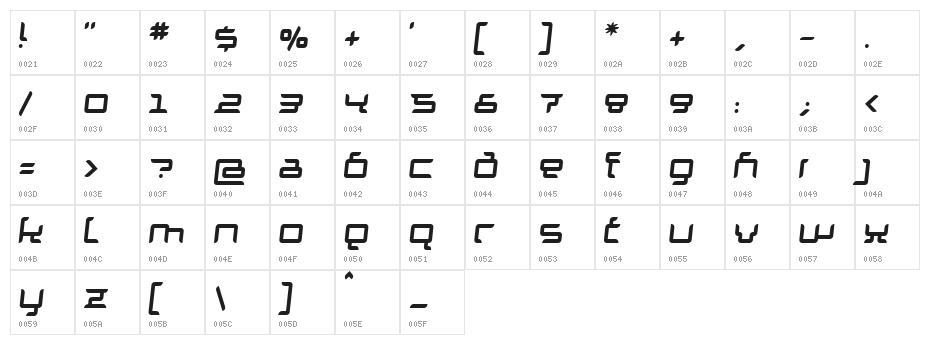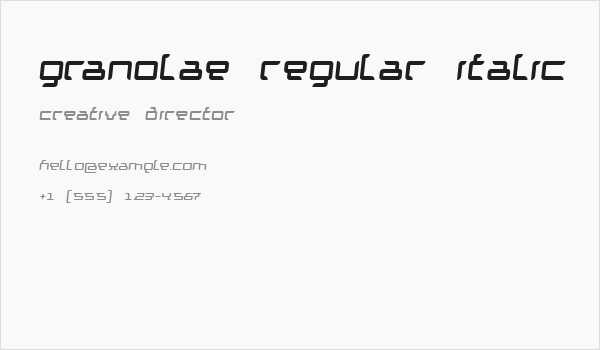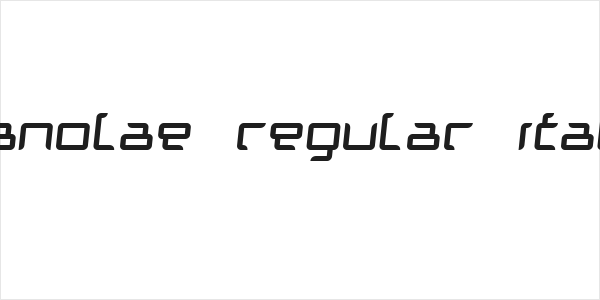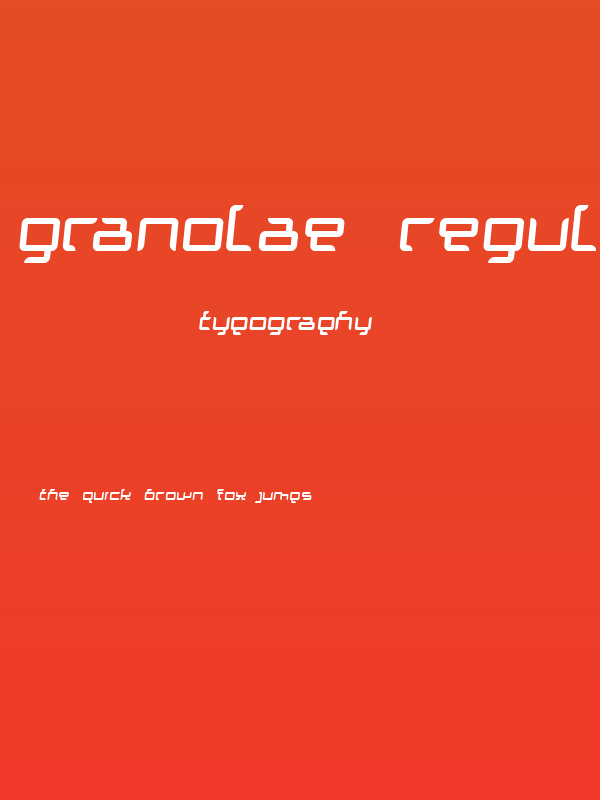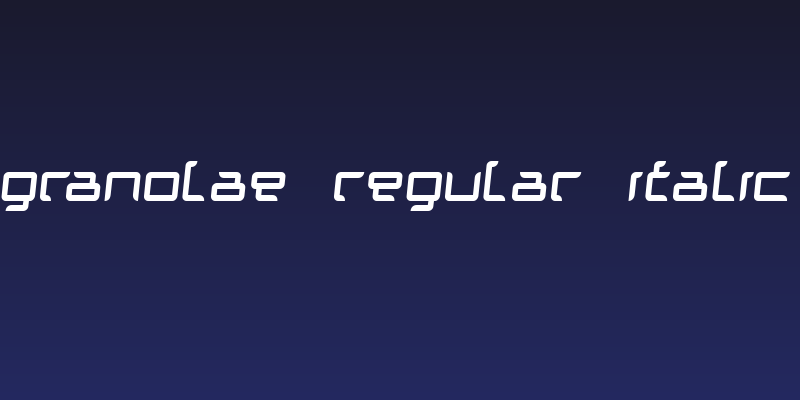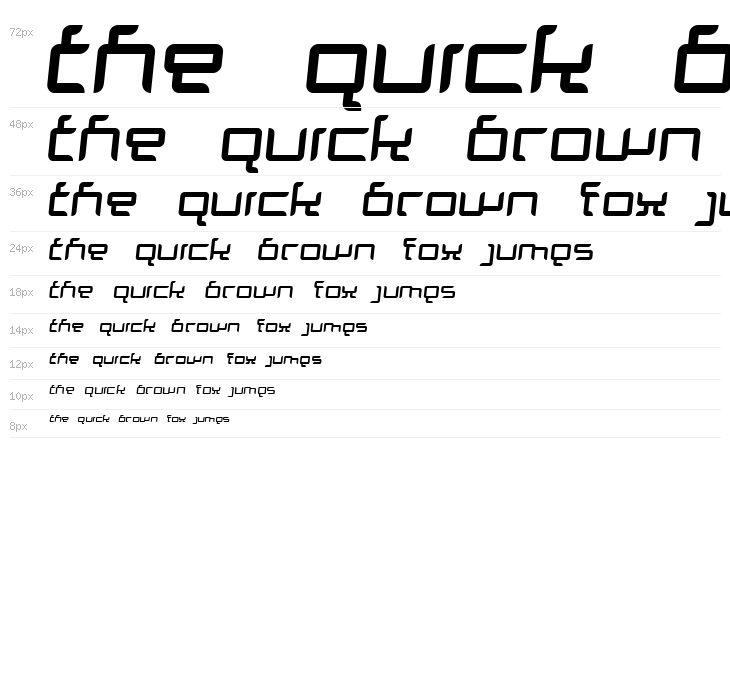
Granolae Regular Italic Font
Granolae Regular Italic Description
This font features a modern, geometric style with a unique blend of angular and rounded elements. The characters are designed with a futuristic aesthetic, incorporating sharp edges and smooth curves that create a dynamic visual flow. The italic slant adds a sense of motion and energy, making it stand out in any design. The font maintains a consistent stroke width, providing a clean and uniform appearance. The spacing between characters is balanced, ensuring readability while maintaining its distinctive style. This font is versatile, suitable for a variety of creative projects.